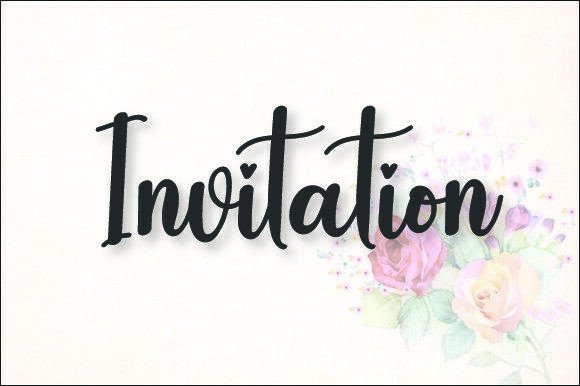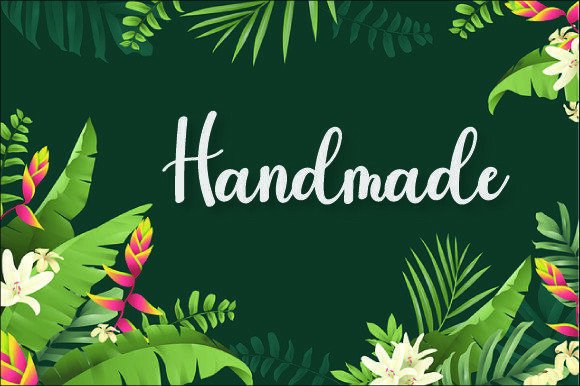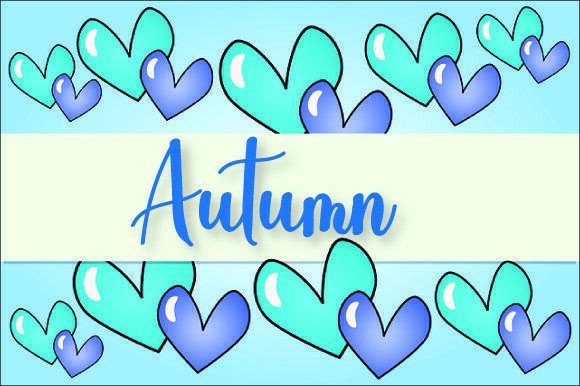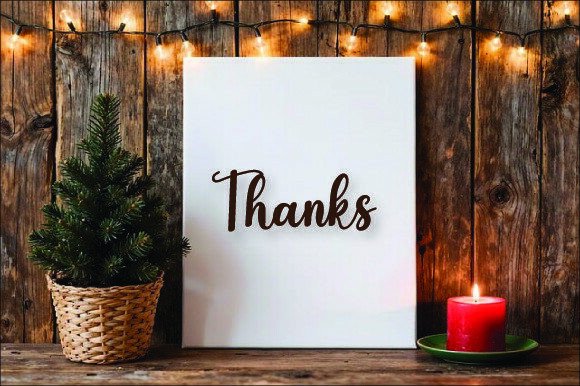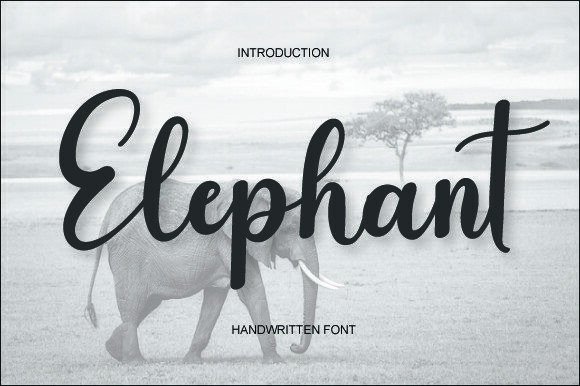
Introducing Elephant Font: The Perfect Blend of Elegance and Strength
Are you a designer or crafter looking for a font that can elevate your brand, social media graphics, or print materials? Look no further than Elephant Font, a beautiful and modern handwritten font that combines soft curves with bold presence. In this article, we’ll explore the features and benefits of Elephant Font, and why it’s the perfect choice for your next design project.
A Stylish yet Approachable Look
Elephant Font is a carefully crafted handwritten font that exudes a stylish yet approachable look. Its flowing strokes and natural ligatures create a sense of movement and fluidity, making it perfect for designs that require a touch of elegance and sophistication. Whether you’re designing a logo, wedding invitation, or product packaging, Elephant Font is sure to make a lasting impression.
Versatile and Adaptable
One of the standout features of Elephant Font is its versatility. Its unique blend of elegance and strength makes it suitable for a wide range of design applications, from boutique labels to lifestyle blogs. Whether you’re designing for digital or print, Elephant Font adapts seamlessly to any medium, ensuring that your design looks great on any platform.
Perfect for Branding and Marketing
Elephant Font is an excellent choice for branding and marketing materials, such as business cards, brochures, and social media graphics. Its modern and sophisticated look helps to create a strong brand identity that will resonate with your target audience. Additionally, its legibility and readability make it perfect for body text, ensuring that your message is communicated clearly and effectively.
Wedding Invitations and Stationery
Elephant Font is also an excellent choice for wedding invitations, stationery, and other special occasion designs. Its elegant and refined look adds a touch of sophistication and romance to any design, making it perfect for couples looking to create beautiful and memorable wedding stationery.
Product Packaging and Labels
For crafters and small business owners, Elephant Font is an excellent choice for product packaging and labels. Its bold and modern look helps to create eye-catching packaging that stands out on store shelves, while its elegance and sophistication add a touch of luxury to any product.
Key Features of Elephant Font
- Handwritten font: Elephant Font is a carefully crafted handwritten font that exudes a sense of elegance and sophistication.
- Flowing strokes: Its flowing strokes and natural ligatures create a sense of movement and fluidity.
- Versatile: Elephant Font is suitable for a wide range of design applications, from branding and marketing to wedding invitations and product packaging.
- Legible and readable: Its clear and concise lettering makes it perfect for body text.
In conclusion, Elephant Font is a beautiful and modern handwritten font that offers the perfect blend of elegance and strength. Its versatile style, flowing strokes, and natural ligatures make it suitable for a wide range of design applications, from branding and marketing to wedding invitations and product packaging. Whether you’re a designer or crafter, Elephant Font is an excellent choice for adding a sophisticated handwritten touch to your next design project.